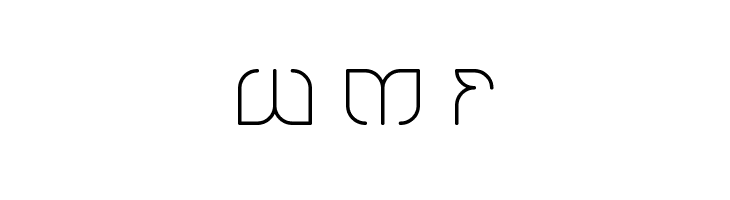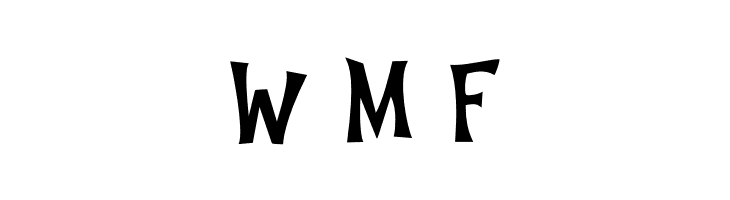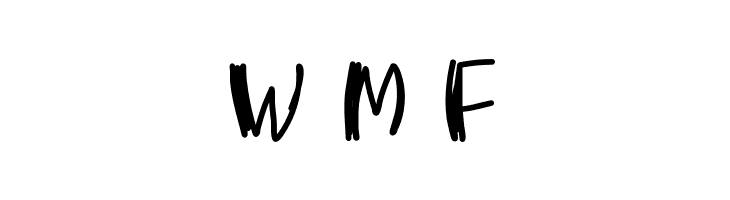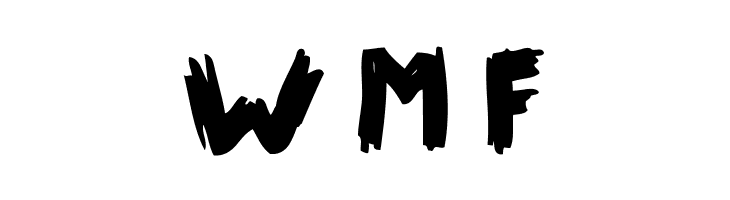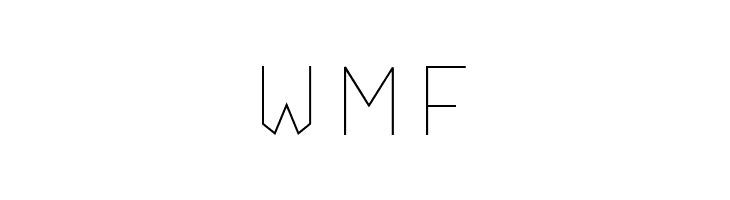
A playful, hand-drawn font with bold, rounded characters.
A classic serif font with elegant strokes and moderate contrast.
A bold, decorative font with sketch-like, circular backgrounds.
A bold, modern font with a geometric style and strong presence.
A bold and artistic font with a blend of sharp and smooth lines.
A bold, classic serif font with elegant and authoritative design.
A bold, playful handwritten font with rounded, irregular characters.
A bold, distressed font with a rugged, grungy appearance.
A playful, bold font with rounded edges and a dynamic slant.
A whimsical, elegant cursive font with flowing, artistic strokes.
A bold, medieval-inspired font with sharp serifs and flowing curves.
A modern serif font with clean lines and balanced proportions.
A bold, playful handwritten font with thick, rounded strokes.
A bold, slanted font with a dynamic and playful style.
A playful, whimsical font with exaggerated curves and a hand-drawn style.
A bold, geometric font with sharp angles and a modern style.
A bold, brush-style font with a lively, hand-drawn appearance.
A bold, decorative font with patterned uppercase letters and modern lowercase.
A playful, handwritten font with a casual and whimsical style.
A geometric, modern font with clean lines and rounded corners, ideal for tech-inspired designs.
A bold, hand-painted style font with dynamic, irregular strokes.
A bold, playful font with rounded, smooth characters and a dynamic slant.
A modern italic font with smooth, slanted letterforms and a sleek, dynamic appearance.
A geometric, angular font with consistent stroke width and a modern aesthetic.
A bold, geometric outline font with a modern, industrial look.
A bold, geometric, and condensed font ideal for impactful headlines.